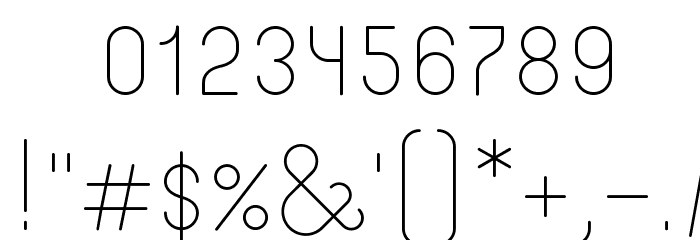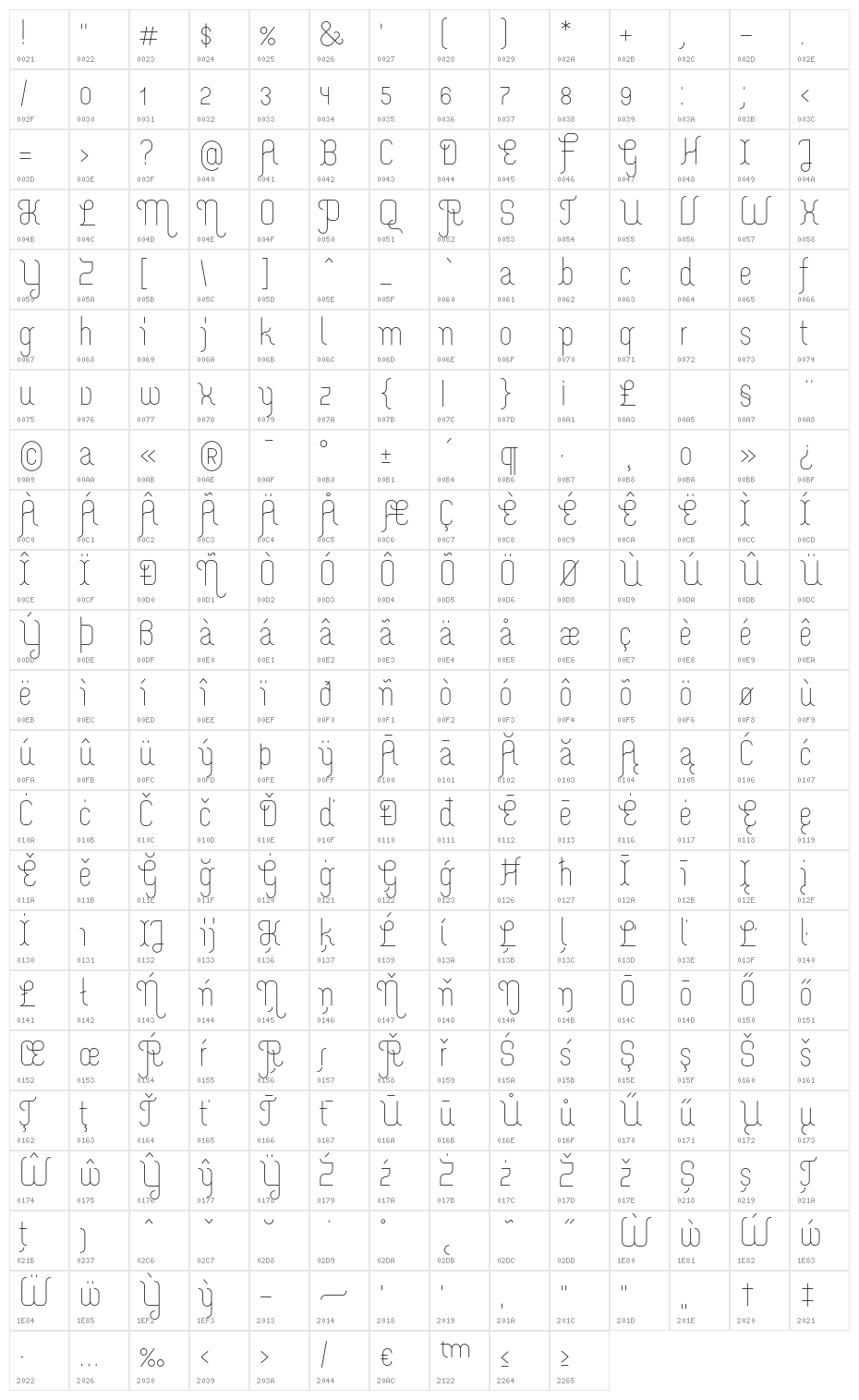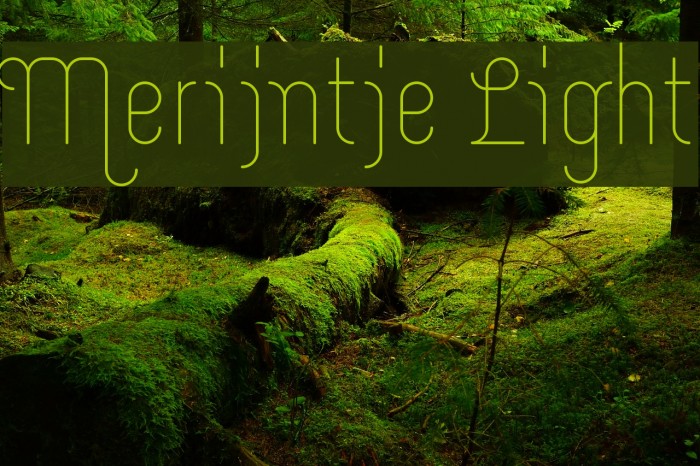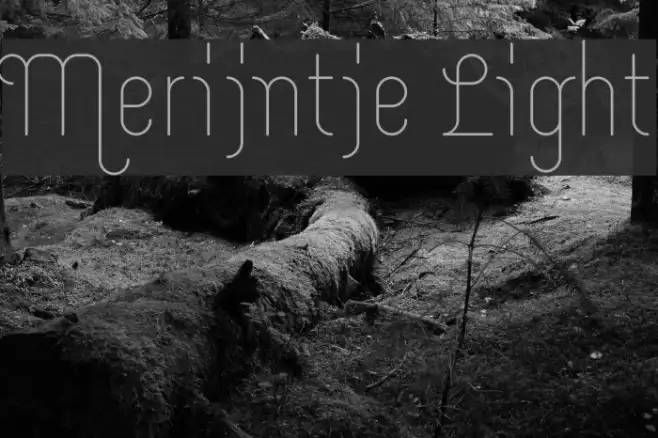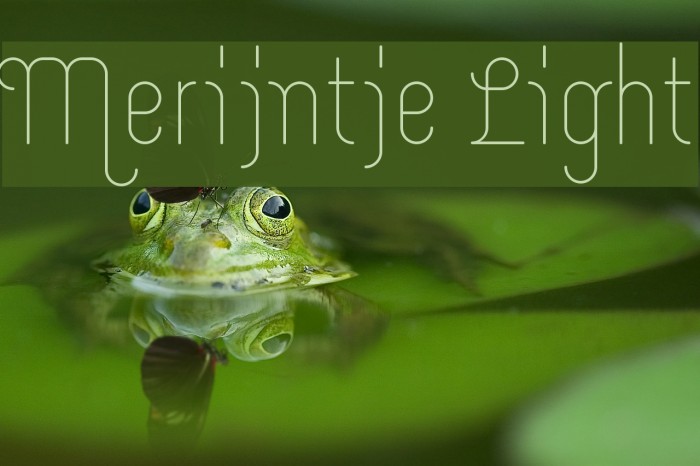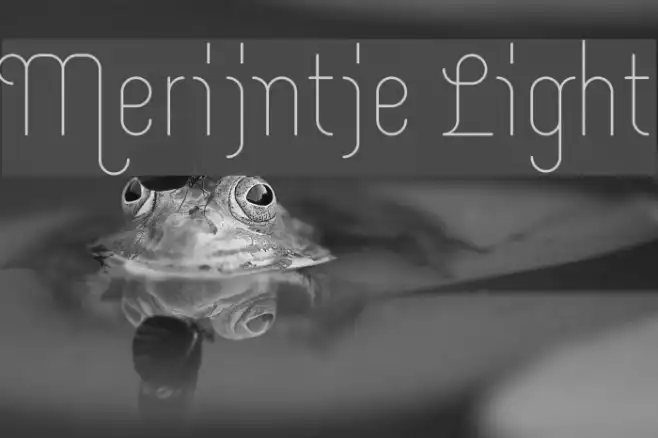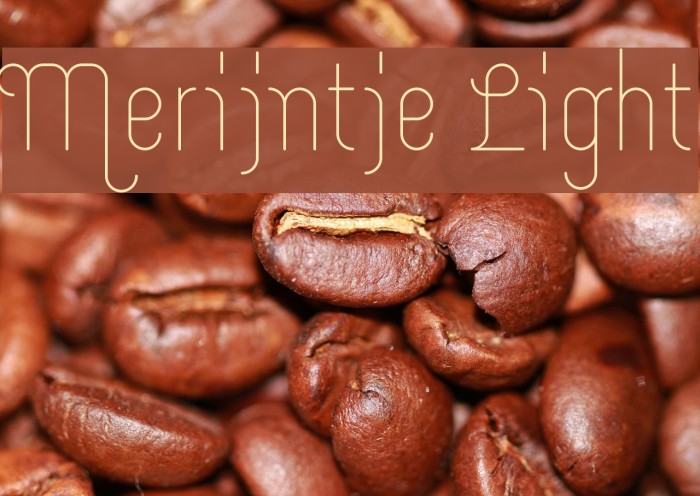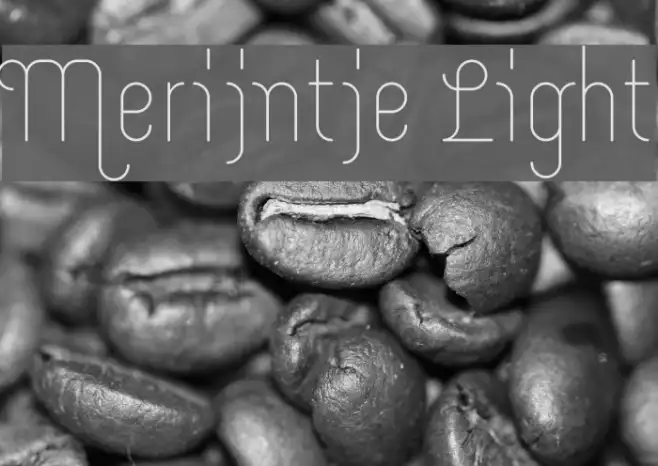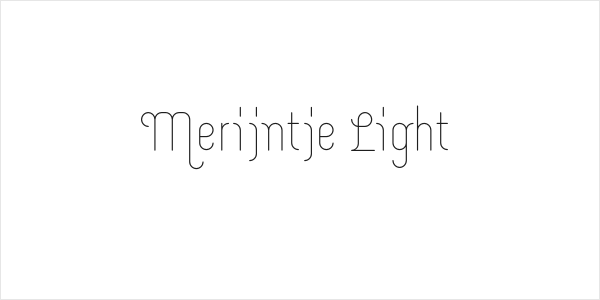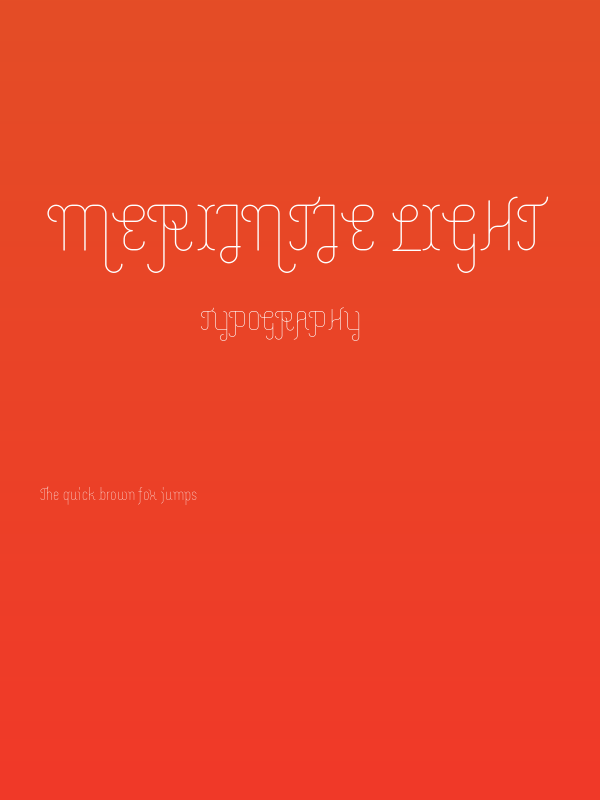
Merijntje Light Font
Merijntje Light Description
This font features a unique and modern design with thin, elongated strokes and a distinct geometric flair. The characters are formed with a continuous line that creates a sense of fluidity and movement. The uppercase letters have a playful, almost whimsical quality, while the lowercase letters maintain a clean and minimalistic appearance. Numbers and special characters follow the same design principles, ensuring consistency throughout. The overall look is both sophisticated and approachable, making it suitable for a variety of creative applications.